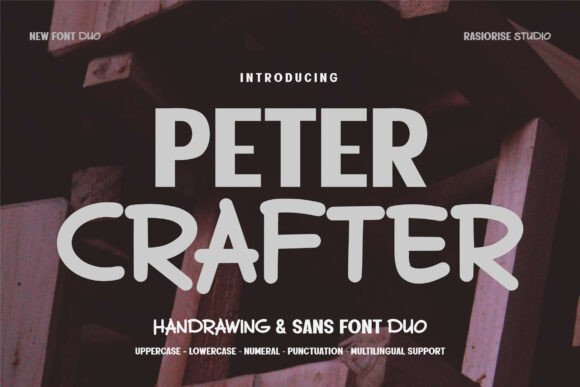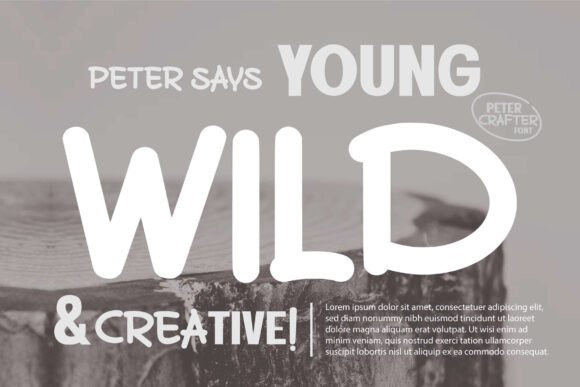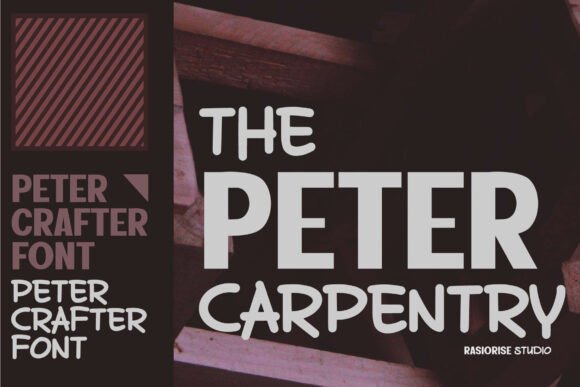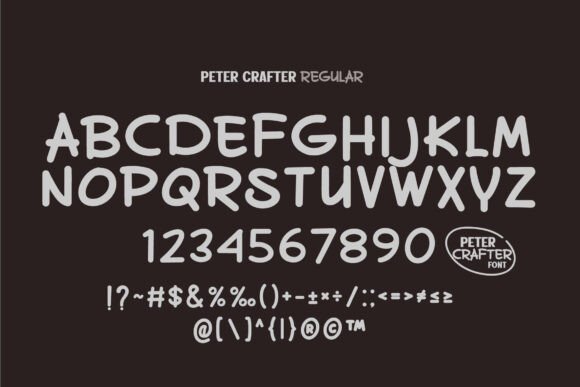
Peter Crafter Font: A Playful Handwritten & Sans Serif Duo
About the Peter Crafter Font
Elevate your designs with Peter Crafter Font, a font that combines sophistication with readability. Peter Crafter has been released for those of you who are looking for dynamic duo font that combines handrawn font and sans-serif styles. A playful handwritten (Regular) font that combines with the Bold Sans-serif (Bold) style strong presence. With easy-to-read character font for your project, also you can easily create a great and stand-out for Logos, Headline, packaging, apparel, Book Cover and social media graphic. Unleash your creativity with Peter Crafter Font.
Peter Crafter excels in headline applications, logos, and short-form text for packaging or social media graphics. Its playful handwritten style paired with a strong sans-serif creates a dynamic, attention-grabbing effect. However, its informal nature makes it unsuitable for body text or lengthy paragraphs. Avoid using it in UI design where legibility is paramount.
The font’s personality is energetic and friendly, yet retains a professional edge thanks to the bold sans-serif counterpart. It is ideal for brands targeting a younger demographic or those seeking a youthful, approachable image. Consider pairing it with a clean sans-serif like Open Sans for balance or a classic serif like Garamond for contrast, depending on the desired level of formality.
For a more playful feel, a script font like Allura could complement the handwritten aspect of Peter Crafter. Conversely, pairing it with a geometric sans-serif, such as Futura, will lend a modern, sophisticated vibe.
Peter Crafter Font Usage Examples
Peter Crafter Font Example